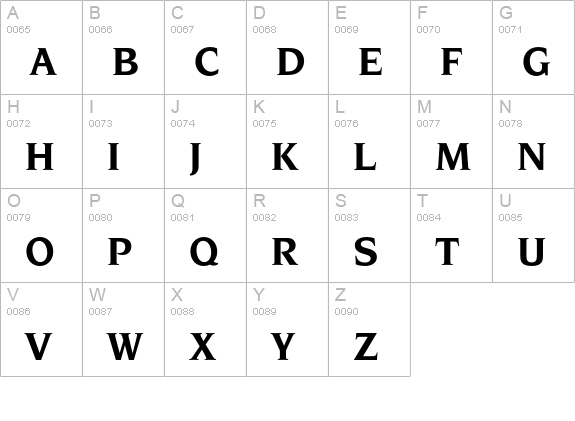
NovareseEF-Bold is a strong, high-contrast variant in the NovareseEF typeface family \xE2\x80\x94 well suited to headlines, attention-grabbing titles, and strong calls-to-action.
NovareseEF-Bold is a striking and assertive font that exudes a sense of boldness and strength. Its clean lines and sharp edges give it a modern and sophisticated look, making it perfect for headlines, titles, and other prominent text. The sturdy letterforms of NovareseEF-Bold demand attention and make a statement, while still maintaining a sense of elegance and professionalism. This font is a versatile choice for a wide range of design projects, from branding and advertising to packaging and signage. Its bold weight ensures that it stands out and commands the reader's attention, making it an ideal choice for projects that require a strong visual impact. Best of all, NovareseEF-Bold is available for free download at FontsMarket.com, making it easily accessible to designers and creatives looking to add a touch of bold sophistication to their work. Don't miss out on the opportunity to enhance your designs with this powerful and visually striking font.